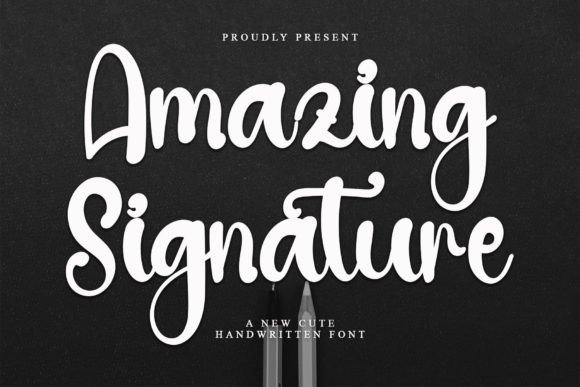
Welcome to the world of captivating designs and impeccable aesthetics, where fonts reign supreme in shaping the visual identity of your creative endeavors. Allow us to introduce you to the Amazing Signature Font, a masterpiece crafted by Inermedia STUDIO that's poised to transform your projects into works of art.
Our Amazing Signature Font belongs to the enchanting realm of script fonts, characterized by its graceful curves, fluid strokes, and a touch of elegance that's sure to leave a lasting impression. With its contemporary atmosphere and impeccable form, this font draws inspiration from timeless classic calligraphy, bringing a touch of sophistication to every design.
This font's meticulously balanced and varied design ensures that it enhances the beauty of your projects, whether you're creating logos, branding materials, packaging designs, or any other realm of creative expression. Its versatility knows no bounds, making it the perfect choice for designers, crafters, and visionaries alike.
One of the remarkable features of the Amazing Signature Font is its PUA encoding, a technological marvel that grants you effortless access to a treasure trove of glyphs and ligatures. Unleash your creativity and explore the vast possibilities of embellishments, swashes, and alternate characters that will elevate your designs to new heights.
Picture your logo adorned with the sweeping strokes of the Amazing Signature Font, exuding an air of sophistication that commands attention. Envision your packaging design transformed into a visual masterpiece, capturing the essence of your brand with its captivating curves and elegant form. The possibilities are endless, limited only by your imagination.